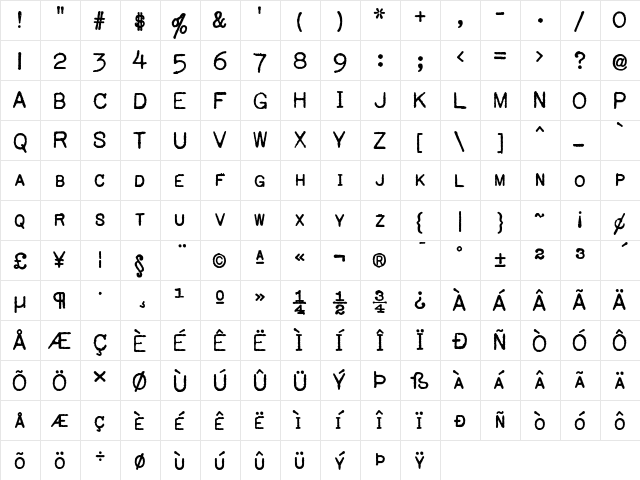
Customs Paperwork AOE SmallCaps Regular
Design Context for Customs Paperwork AOE SmallCaps Typeface
Customs Paperwork AOE SmallCaps is a composed and adaptable typeface that performs quietly and consistently across a wide range of design contexts.
Pro Tip: Use Customs Paperwork AOE SmallCaps in both headline and body roles to test its range before committing to a single application.